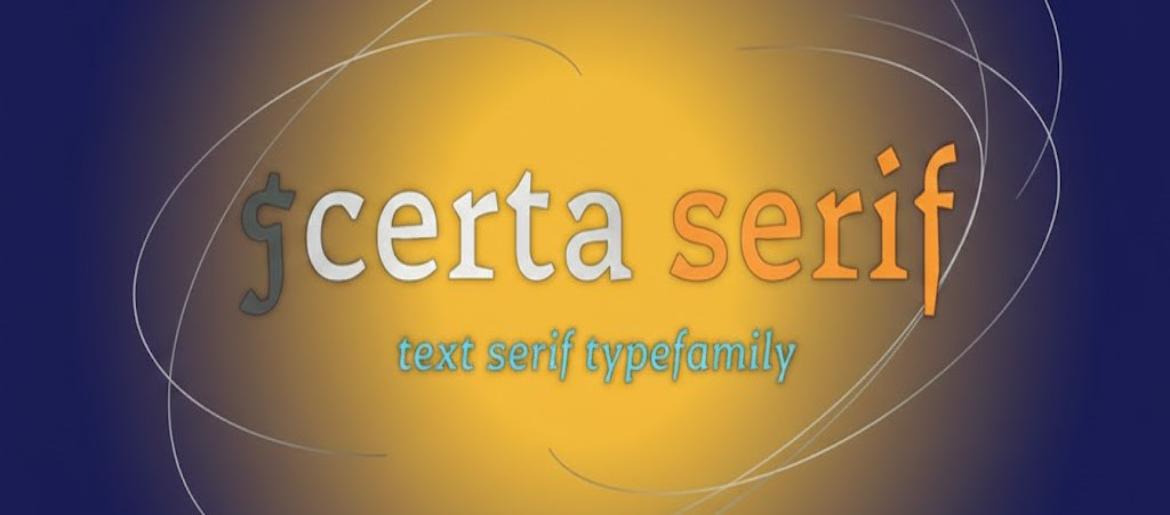
Certa Serif Font
Certa Serif Font is a refined serif typeface featuring elegant contrast and balanced proportions for clear readability. It is suitable for editorial layouts, branding, book design, and professional typography projects that require a timeless and sophisticated appearance. Its polished structure and versatile character make it a reliable and stylish addition to high-quality and classic free fonts collections.
➤ Font Name: Certa Serif
➤ Designer: Glen Jan
➤ Style: Slab Serif